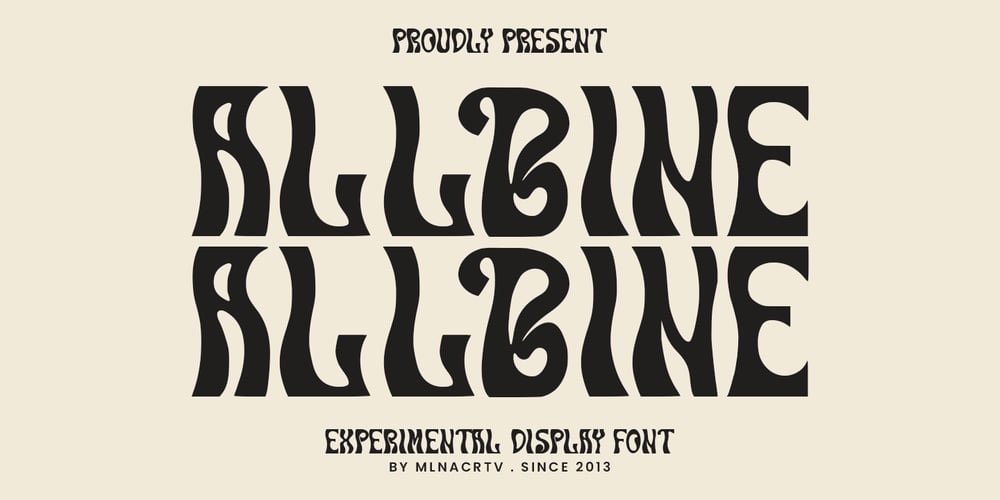
MC Allbine
MC Allbine font
MC Allbine Font Family was designed by Gilang Maulana and published by Maulana Creative. MC Allbine contains 1 styles and family package options. Allbine experimental display typeface font, fun character with a bit of ligatures and alternates. To give you an extra creative work. Allbine font support multilingual more than 100+ language. This font is good for logo design, Social media, Movie Titles, Books Titles, a short text even a long text letter and good for your secondary text font with script or serif. Make a stunning work with Allbine font.Cheers,Maulana Creative